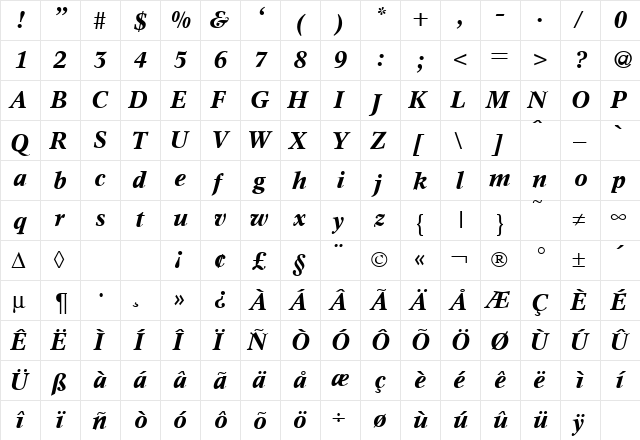
Concept BoldItalic
Design Context for Concept Typeface
Concept is a composed and adaptable typeface that performs quietly and consistently across a wide range of design contexts. The slanted form adds forward momentum and visual energy. The heavy weight commands attention and anchors typographic hierarchies.
Pro Tip: Use Concept for emphasis, pull quotes, and subheadings where its slanted energy can add rhythm to the layout.